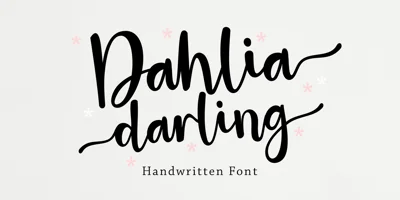
Dahlia Darling Font
Dahlia Darling Font is perfect for floral boutique branding, garden center marketing, botanical wedding invitations, flower shop signage, spring festival promotions, feminine beauty product packaging, romantic stationery designs, and enchanting garden party materials.
This font is exciting because it captures the delicate beauty of blooming flowers with feminine grace and botanical sophistication. Dahlia Darling Font features flowing letterforms with petal-inspired curves that evoke the gentle elegance of garden blossoms and natural beauty, making it ideal for projects that require floral charm and authentic feminine appeal.
The Dahlia Darling Font family includes regular, light, bold, and script variants, along with floral alternates and botanical ligatures that enhance its garden character. Each weight maintains the font's delicate aesthetic while providing different levels of feminine expression for various floral and beauty design applications.
Whether you're developing charming floral brands, creating compelling botanical materials, or designing romantic garden campaigns, Dahlia Darling Font delivers exceptional beauty and floral appeal. Its distinctive botanical style makes it an excellent choice for designers seeking to add genuine flower garden charm and feminine sophistication to their projects. The font's versatility extends from flower shop branding to botanical event signage, ensuring consistent performance across all floral applications. With its lovingly crafted letterforms and petal proportions, this typeface provides professional results that celebrate natural beauty and establish enchanting brand presence with its unmistakable floral character and delicate garden elegance.